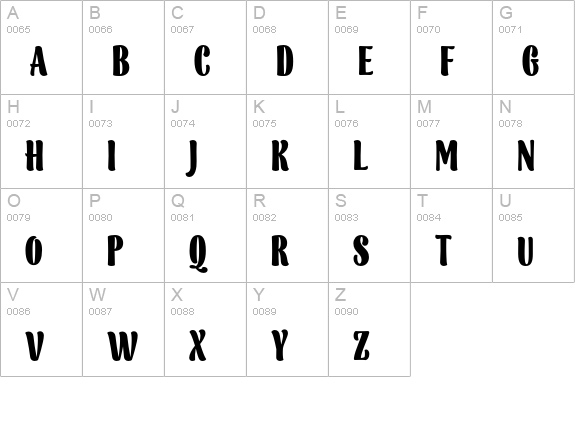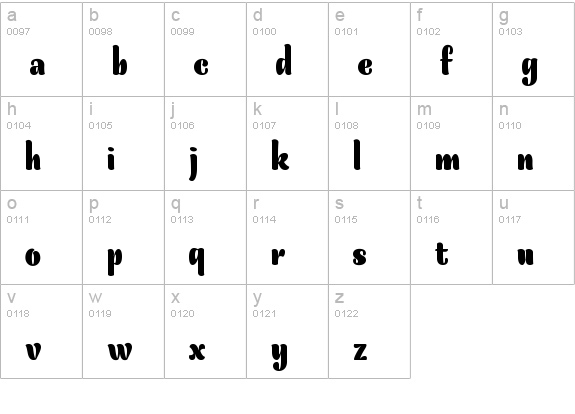
Blancmange Bold Font Details
Blancmange Bold is a strong, high-contrast variant in the Blancmange typeface family \xE2\x80\x94 well suited to headlines, attention-grabbing titles, and strong calls-to-action.
Introducing Blancmange Bold font - a dynamic and modern typeface that exudes confidence and style. With its bold and striking design, Blancmange Bold is perfect for making a statement in your designs. The strong lines and sleek curves of this font are sure to capture the attention of your audience. Blancmange Bold is not only visually appealing but also highly versatile, making it suitable for a wide range of design projects. Whether you are working on branding materials, advertisements, posters, or any other creative project, Blancmange Bold will help you achieve a professional and impactful look. Best of all, Blancmange Bold is completely free to download at FontsMarket.com. So don't hesitate to add this impressive font to your collection and take your designs to the next level with Blancmange Bold.